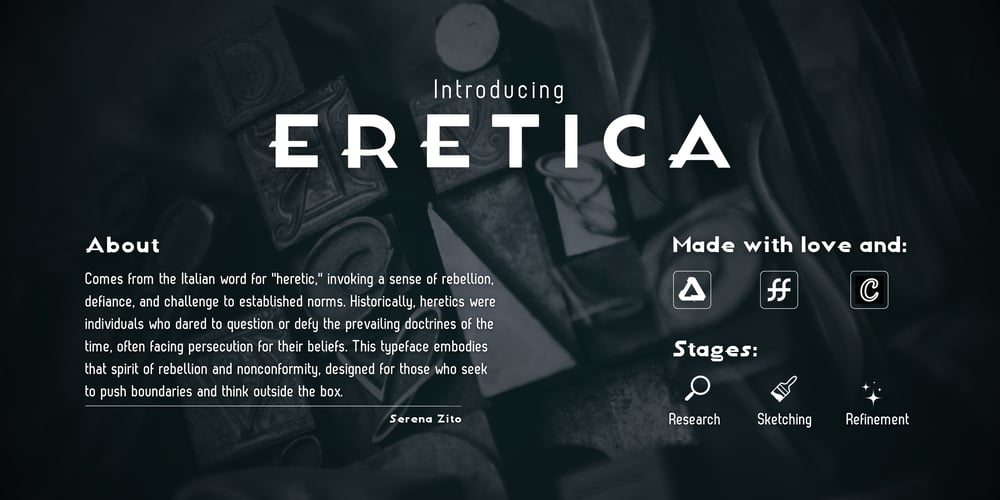
Eretica Font Family was designed by Serena Zito and published by SereLab. Eretica contains 1 styles and family package options. Eretica is a bold, modern typeface that merges geometric precision with unique, edgy details. Its strong lines and distinct forms make it a versatile choice for eye-catching headlines, branding, and digital projects. Eretica’s design is crafted for clarity and impact, making it perfect for logos, posters, and titles where boldness is essential. With a full set of uppercase, lowercase, numerals, symbols, and accented characters, Eretica supports multilingual applications and stands out in any creative setting.